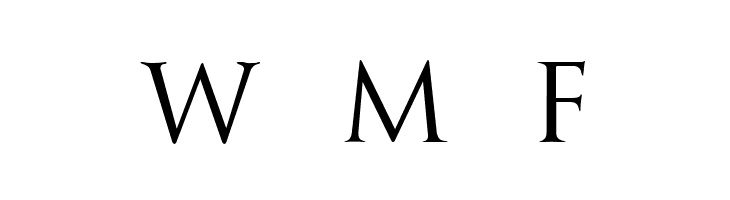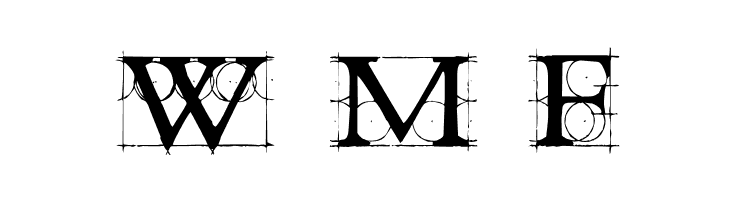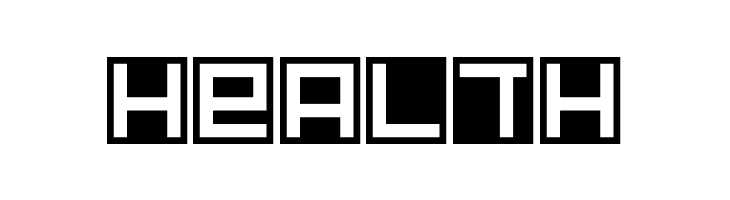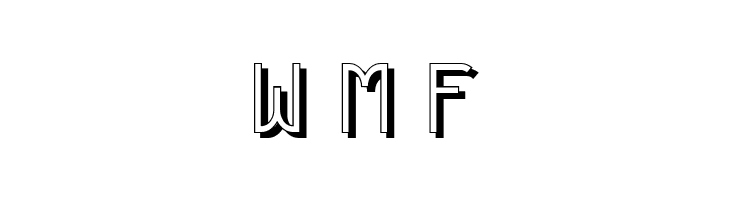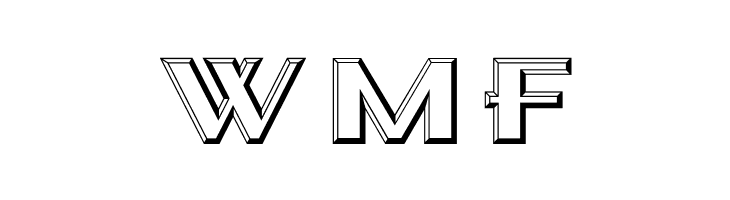
A bold, geometric font with sharp angles and a strong, architectural presence.
A 3D cubic font with a modern, geometric style.
A modern, dotted font with a playful and geometric design.
A futuristic, boxy font with a digital and geometric style.
A 3D isometric font with bold, geometric cube-like characters.
A bold, geometric font with a futuristic and architectural style.
Elegant capital letters with a focus on symmetry and geometric precision.
A 3D geometric font with characters enclosed in cube-like structures, offering a futuristic and architectural style.
A 3D cubic font with characters formed by negative space, offering a futuristic and architectural style.
A modern, rounded sans-serif font with uniform stroke width and excellent readability.
A bold, three-dimensional block font with a layered, architectural style.
A bold, 3D geometric font with a strong, architectural style.
A bold, geometric font with a futuristic and architectural style.
A bold, edgy font with sharp, angular lines and a graffiti-like style.
A geometric, square-framed decorative font with a modern architectural style.
A sketch-inspired font with geometric, hand-drawn elements and a technical aesthetic.
A bold, geometric font with a three-dimensional, architectural style.
A classic serif font inspired by Roman inscriptions, exuding elegance and authority.
A bold, chiseled font with geometric serifs and a classic, engraved look.
A bold, geometric font with Art Deco influences and a futuristic style.
Bold, stencil-like font with characters in white on black squares, offering a vintage, industrial feel.
A bold, geometric font with Art Deco influences and strong architectural elements.